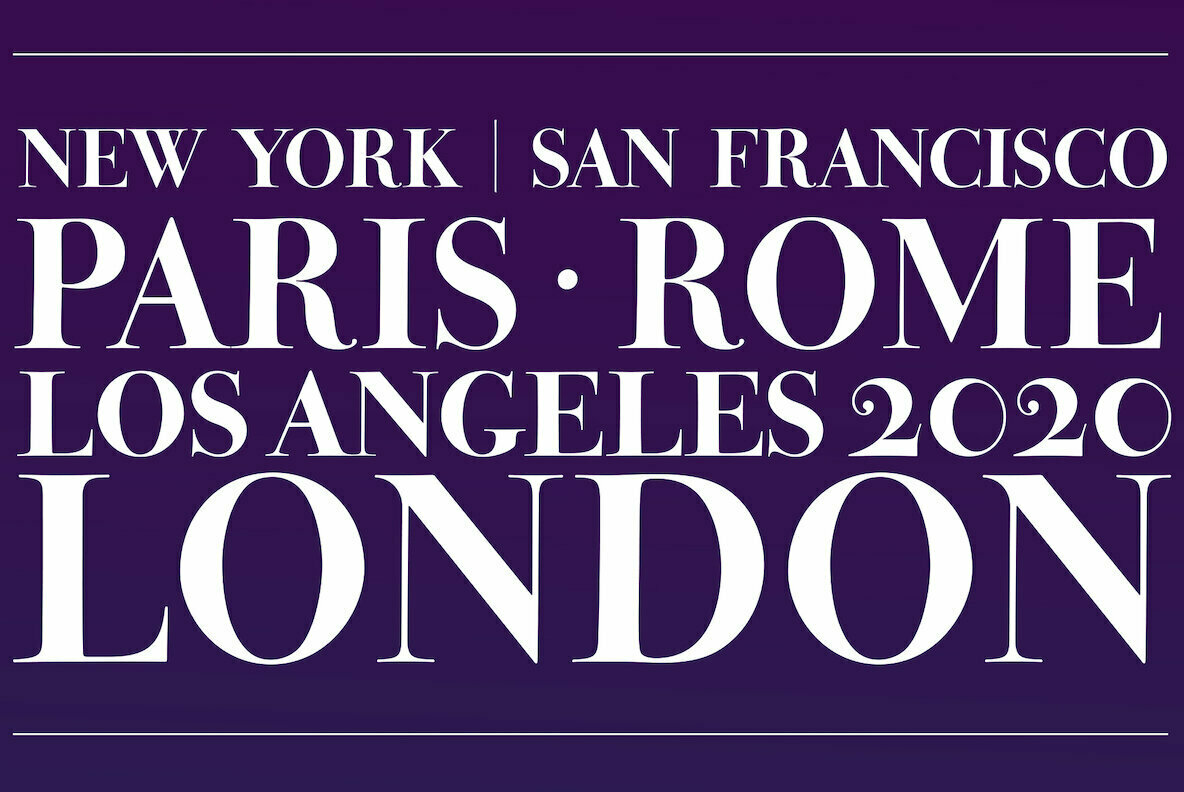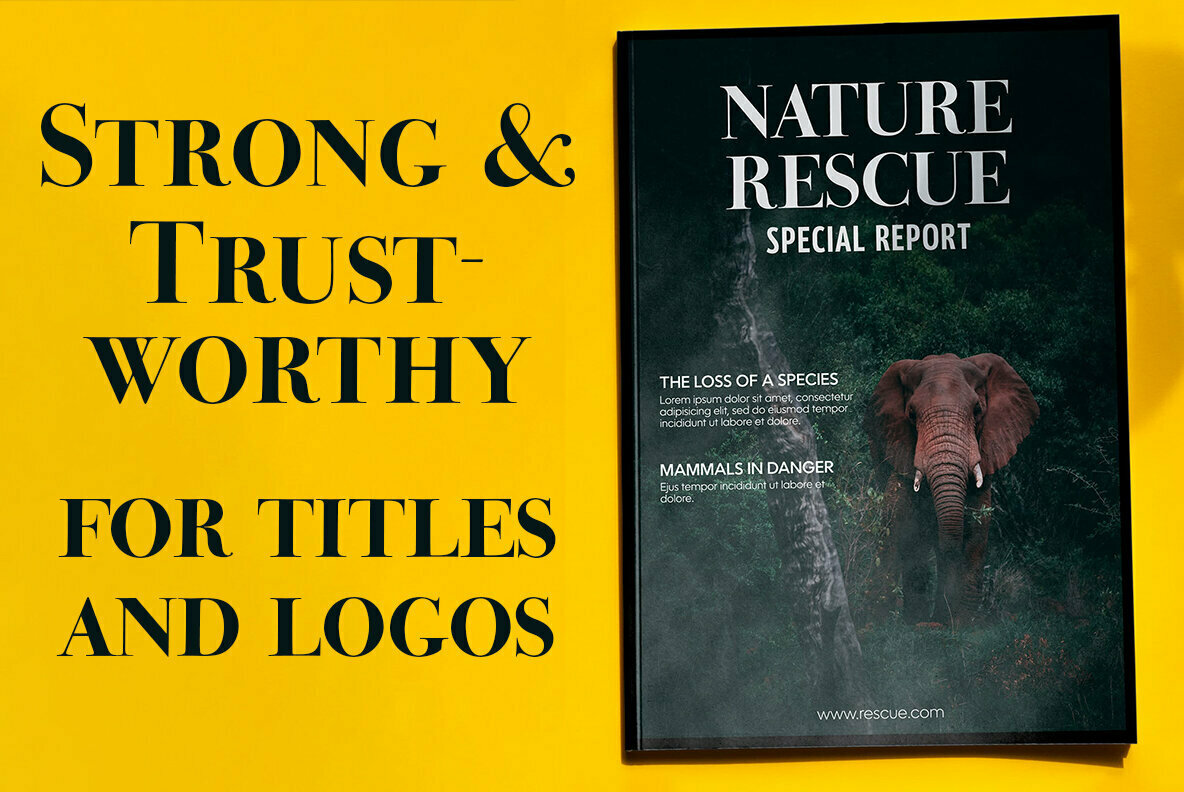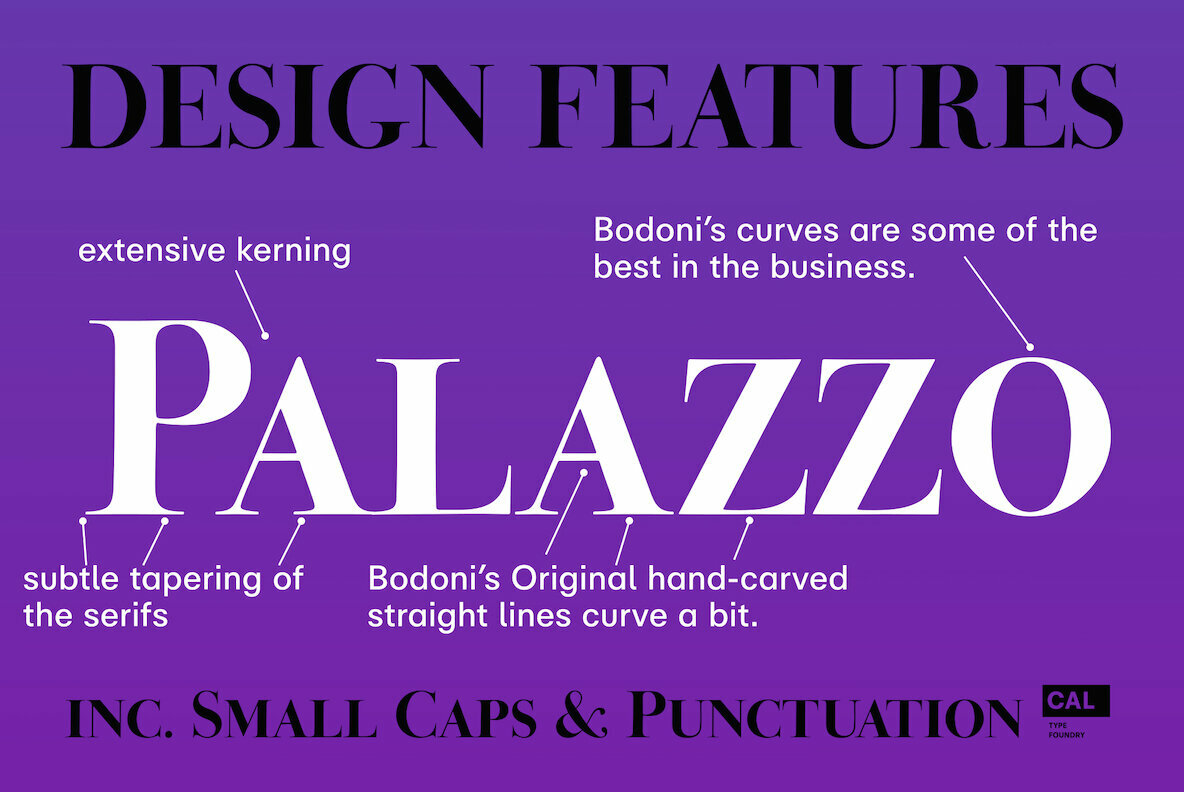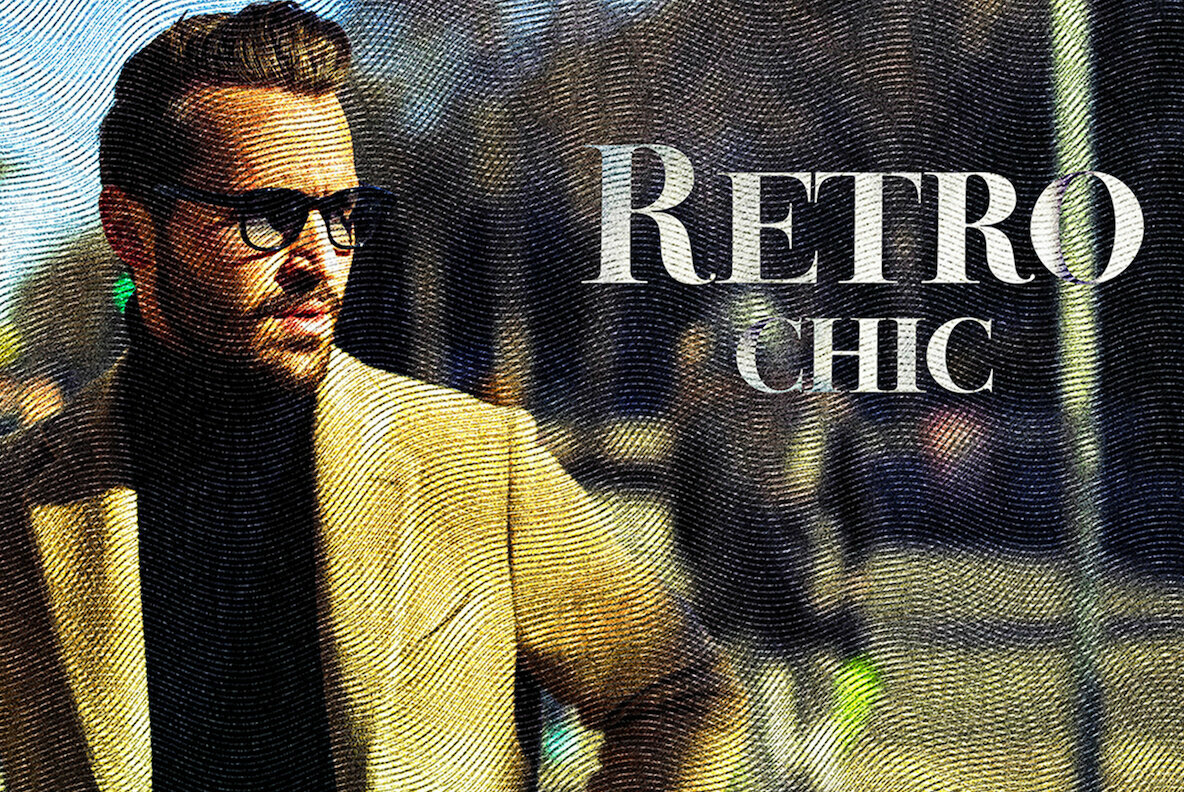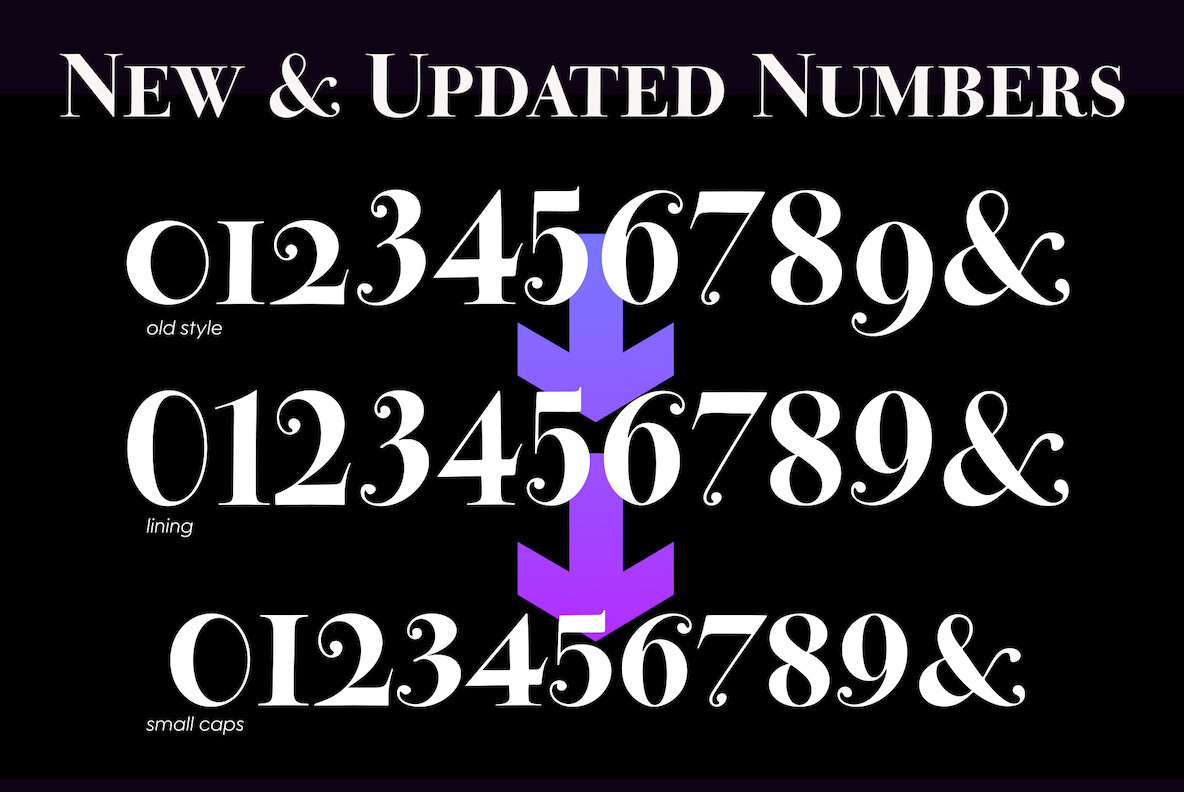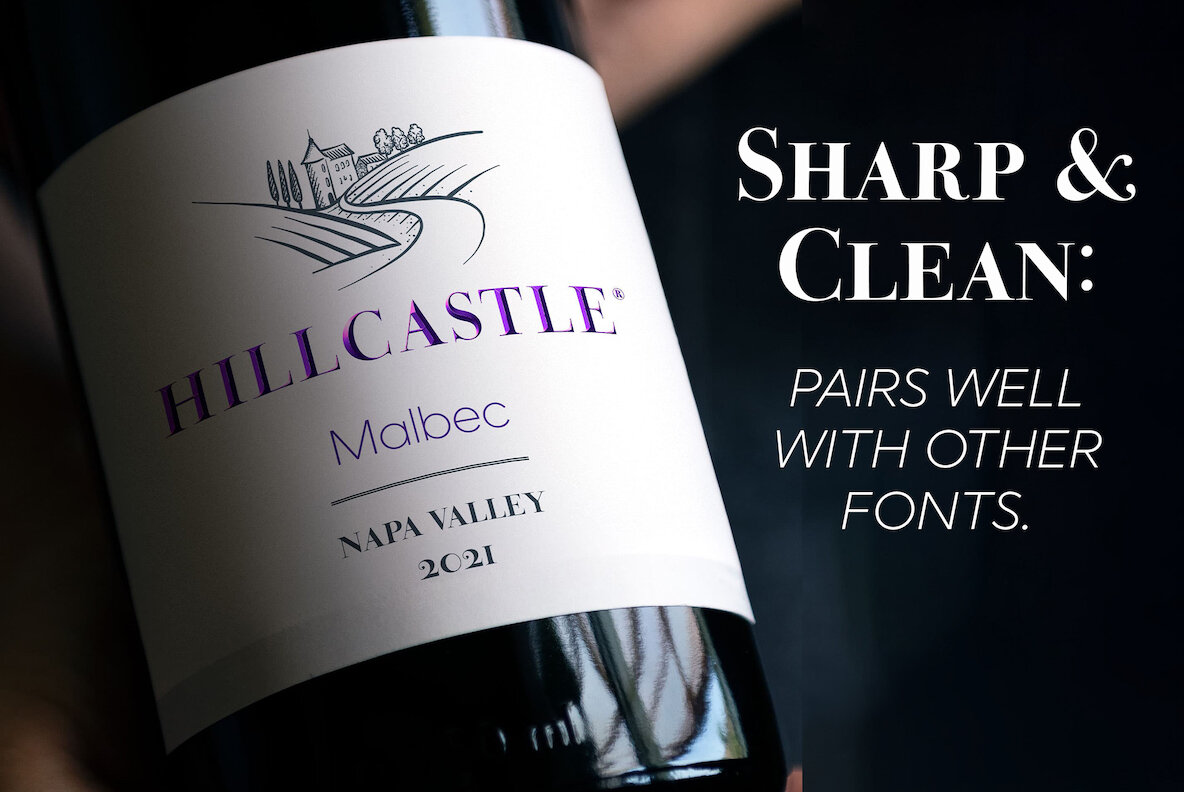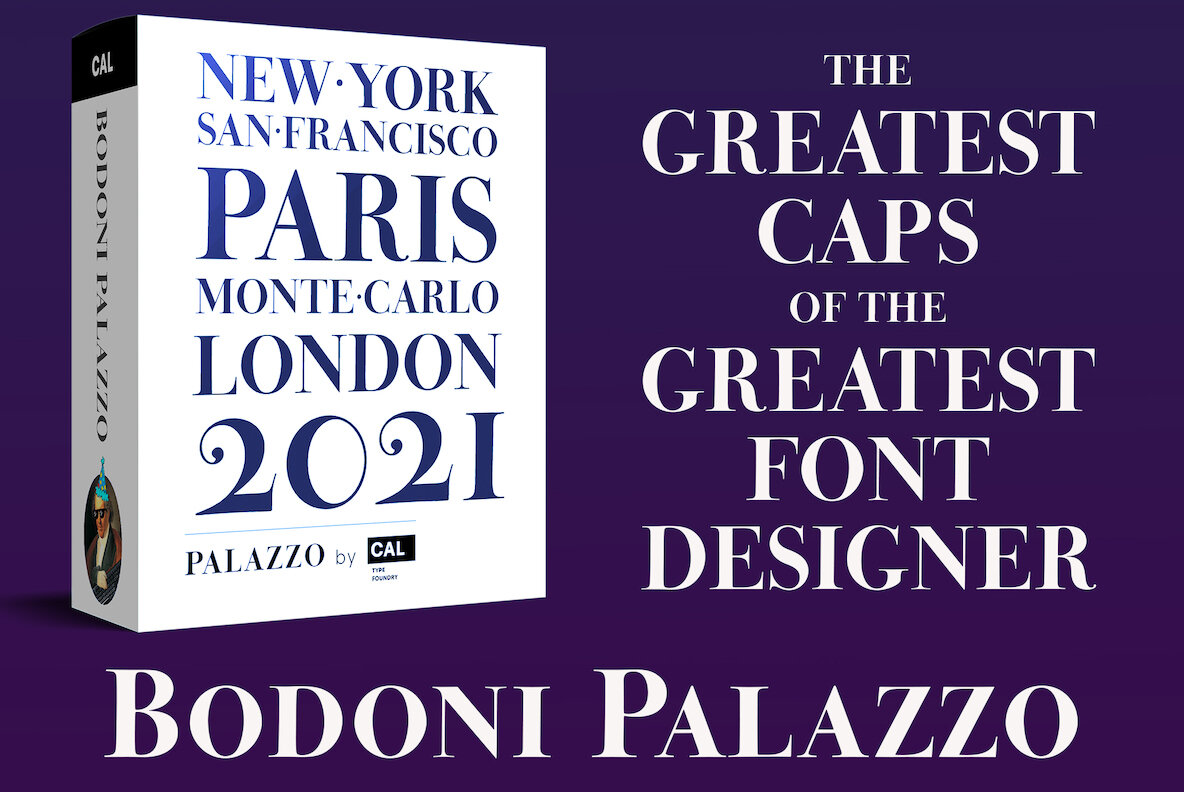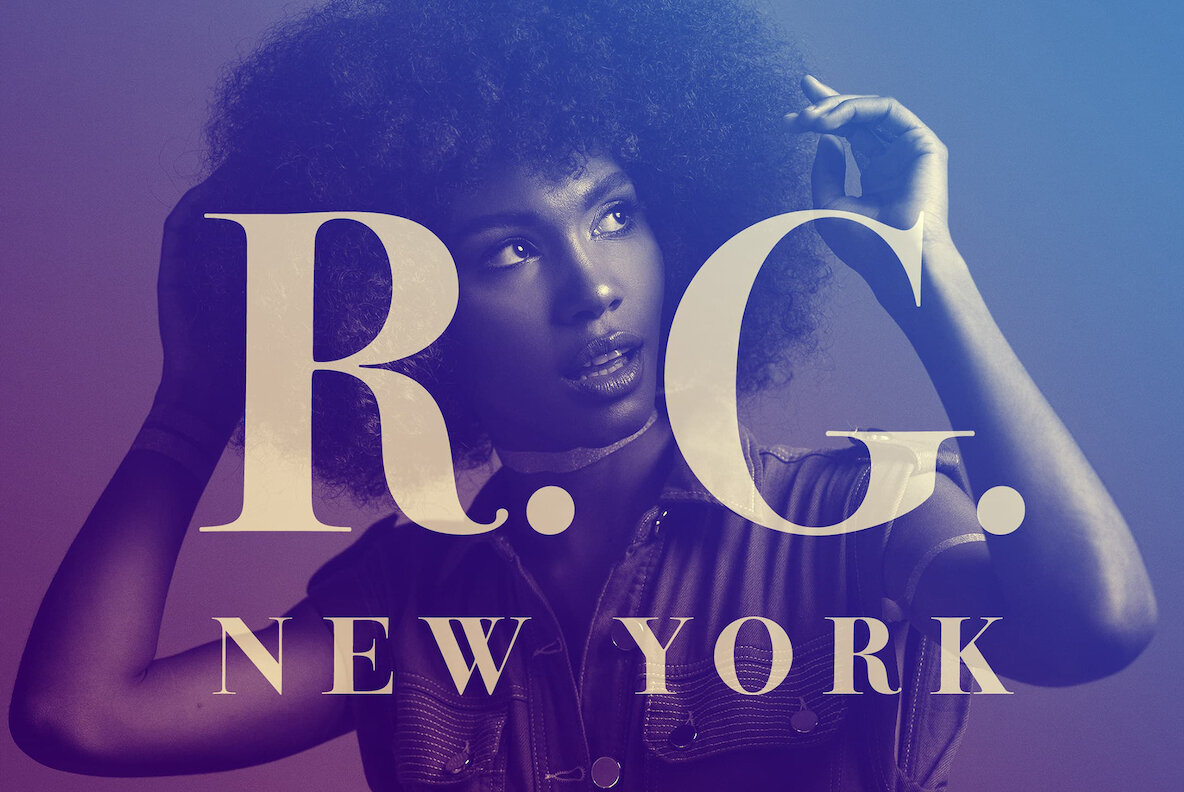
Bodoni Palazzo Font
The Greatest Caps Of The Greatest Font Designer
Bodoni's Most Beautiful Display Caps, Finally Available in Digital
This font is the largest display caps that Bodoni ever made, painstakingly handcarved and now digitized to wow in any situation. It is one of the most beautiful fonts for whenever you need a stunning all caps display. The obvious and easy choice over tired standards like Trajan, Palazzo will be a highlight in your font collection.
Bodoni Palazzo was updated in 2021 to include Small Caps and other new features. Previously only included the "old style" figures (top); Now with lining figures to better match all caps, and small caps numbers to match the small caps.
CAL Bodoni Palazzo is a member of our Origin Series. Origin Fonts are designed to be true to the original designer's intentions and fonts. Our Bodoni origin fonts ARE Bodoni fonts, not imitations or interpretations. They were drawn by Bodoni, our team just expanded it for modern use.